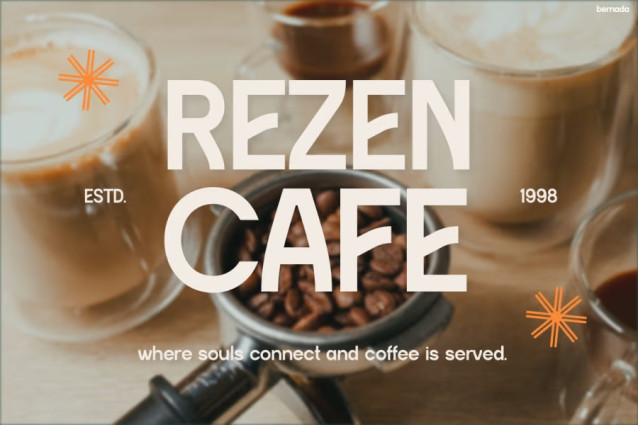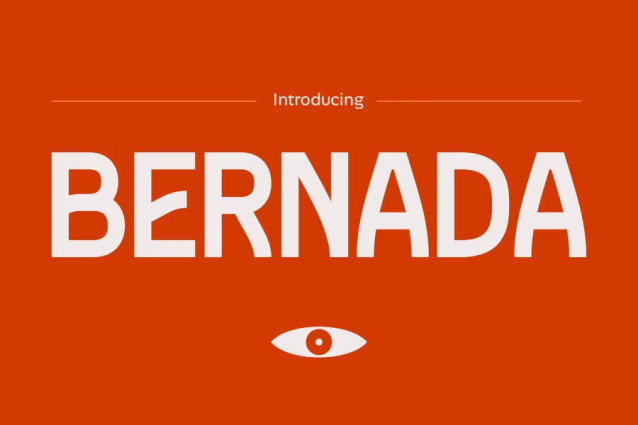
Bernada Font
Bernada Font is a sleek, modern sans-serif that speaks with quiet confidence. Its clean lines and perfectly balanced proportions make it ideal for designers who love minimalism but still want a strong visual presence. Moreover, Bernada’s sharp edges and soft curves create a contemporary personality that’s both professional and approachable. The result is a font that blends clarity with character — perfect for modern branding and Instagram visuals that need to look effortlessly stylish.
Every letter in Bernada is crafted with precision, offering a unique blend of simplicity and warmth. While it feels geometric, it still maintains a human touch, allowing your text to breathe elegance and emotion. Whether you’re designing quotes, logos, or product packaging, Instagram Font Bernada ensures your message looks refined, clean, and visually striking.
Perfect For
Bernada is ideal for creative studios, lifestyle brands, interior designers, and content creators who want a calm yet confident tone in their visuals. Furthermore, it works beautifully for editorial layouts, product catalogs, minimalist posters, and Instagram feeds where modern design meets effortless sophistication.
If your project demands both clarity and identity, this font delivers. It’s versatile enough to fit into brand identities, website headers, or digital campaigns — yet distinctive enough to make your work stand apart. In addition, Bernada’s readability makes it a smart choice for social media captions, print designs, and ad visuals that need both style and precision.
For those who love harmony between form and function, Bernada captures the essence of modern elegance. Its understated strength makes it a reliable choice for brands that aim to look clean, timeless, and high-end.
Why You’ll Love It
When you choose Instagram Font Bernada, you’re embracing design that speaks softly but leaves a strong impression. It’s not just a font — it’s a lifestyle aesthetic. Moreover, it adapts perfectly across digital and print formats, giving your brand a consistent and elevated look everywhere.